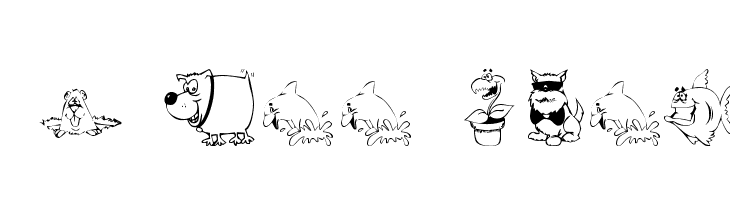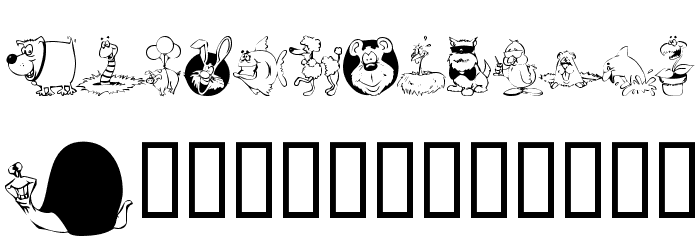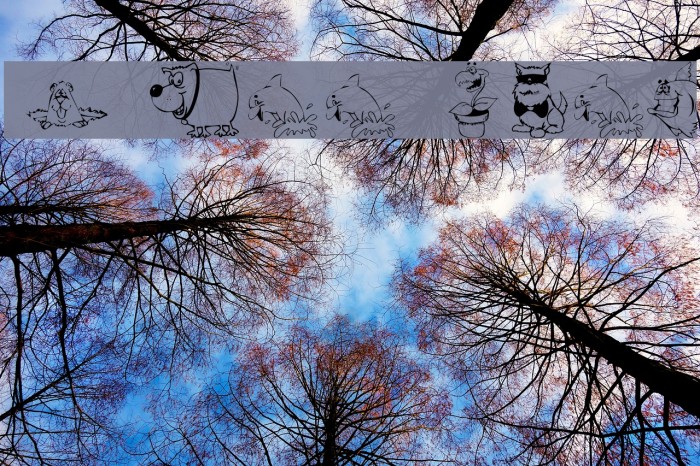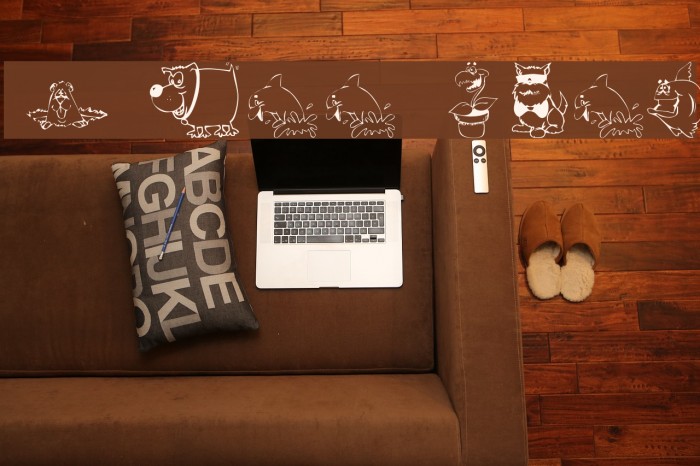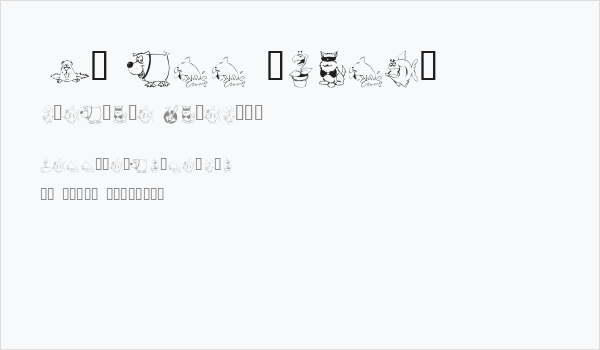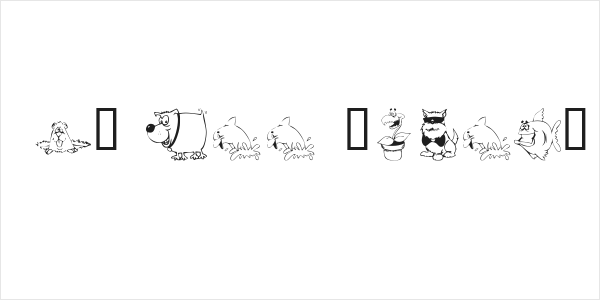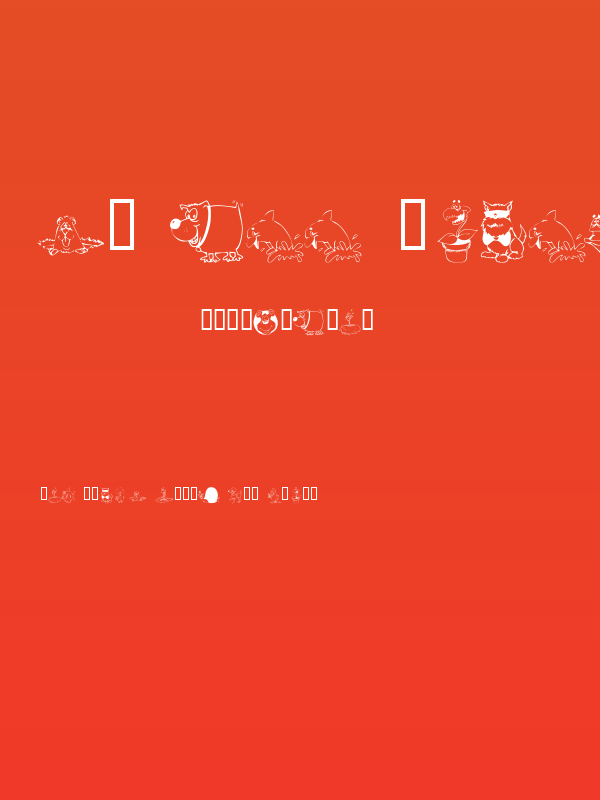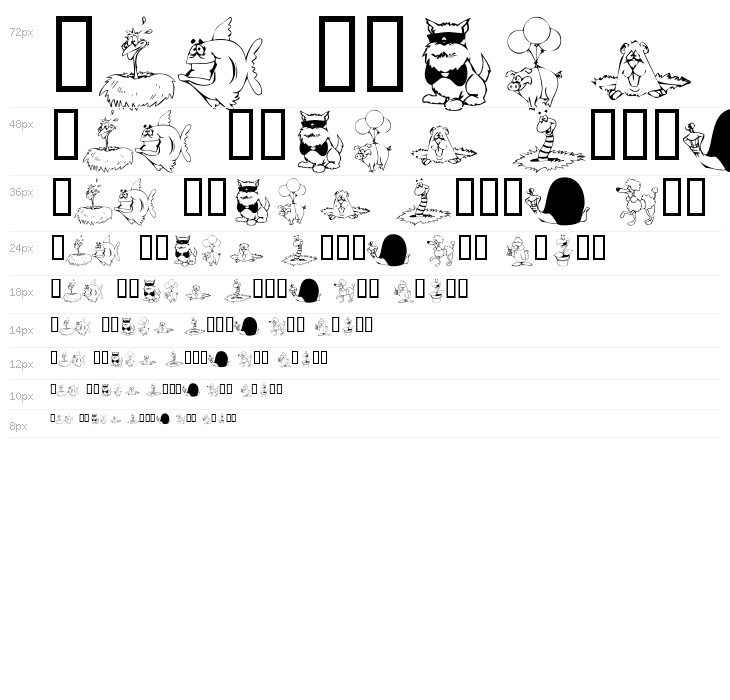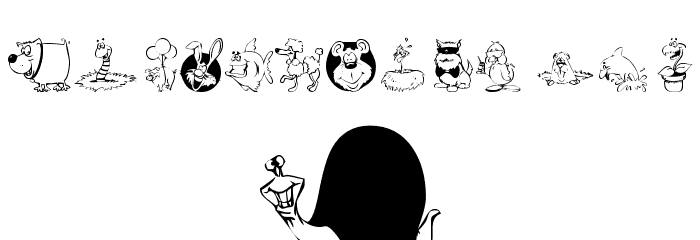
KR All Smiles Font
This is a playful and whimsical decorative font featuring a series of cartoon-style characters and animals. Each character is uniquely designed with exaggerated expressions and features, creating a lively and humorous appearance. The font does not follow traditional letterforms but instead uses these illustrations to represent characters, making it ideal for creative and informal projects. The overall style is light-hearted and fun, perfect for adding a touch of humor and personality to any design.
A whimsical decorative font with cartoon-style characters and animals.
• Proposed Projects: Ideal for children's books, playful invitations, comic strips, and creative posters.
• Category: Decorative/Display
• Overall Style: Playful and Humorous
• Use Case: Logos, Posters, Creative Projects